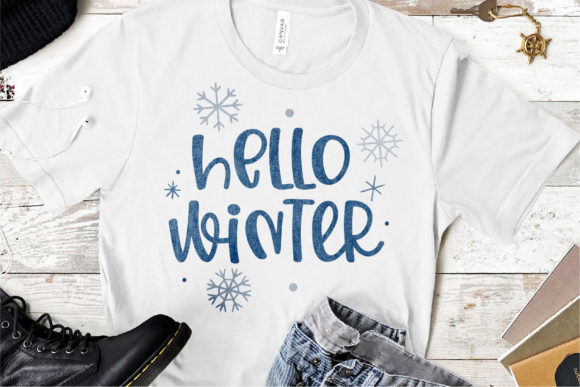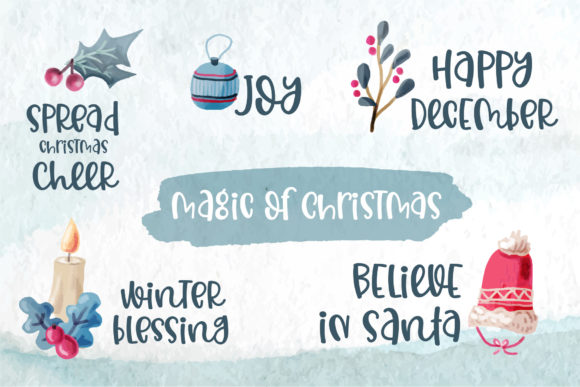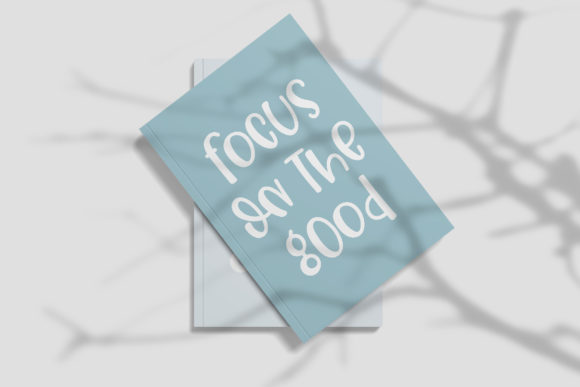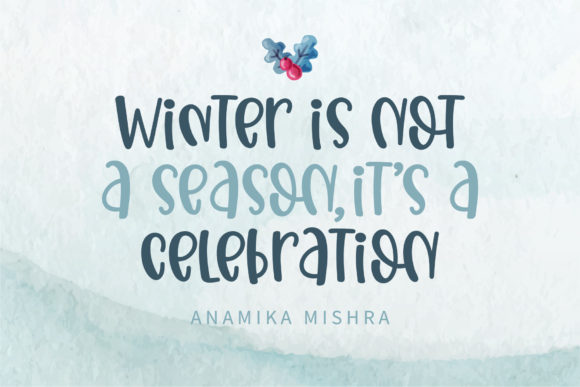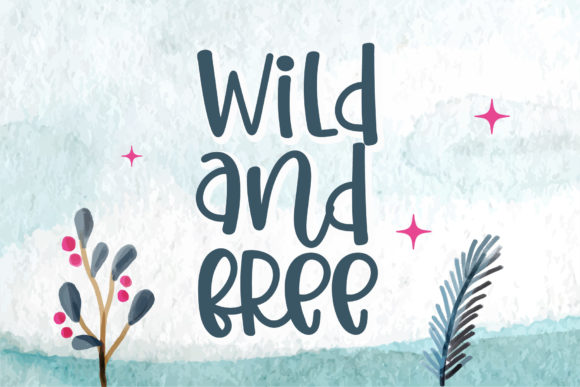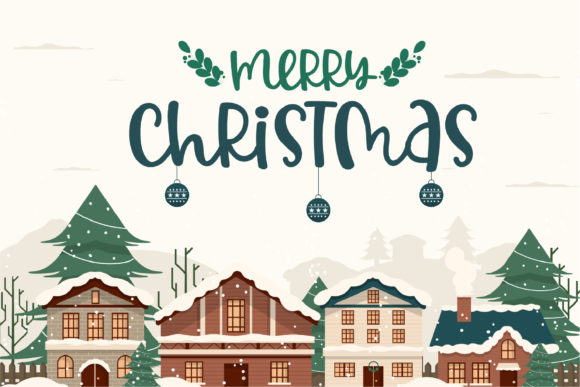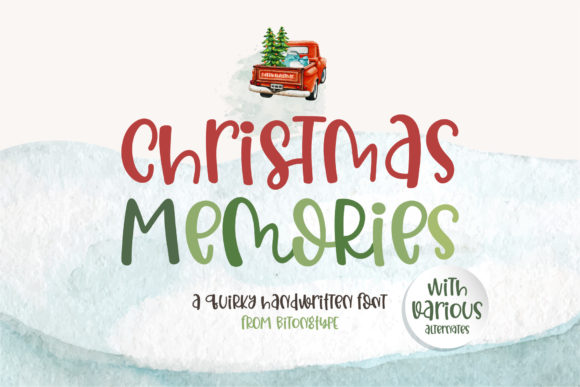
Christmas Memories Font: A Quirky and Laid-Back Handwritten Font for Your Holiday Creations
Are you looking for a font that can add a personal touch to your holiday creations? Look no further than the Christmas Memories Font! This quirky and laid-back handwritten font is perfect for designers and crafters who want to create unique and eye-catching projects. In this article, we’ll take a closer look at the features and benefits of Christmas Memories Font and explore how it can enhance your font library.
A Quirky and Laid-Back Handwritten Font
Christmas Memories Font is a beautifully designed handwritten font that exudes a sense of warmth and coziness. Its quirky and laid-back style makes it perfect for holiday-themed projects, such as Christmas cards, gift tags, and decorations. The font’s irregularities and imperfections give it a charming, hand-crafted feel that’s sure to delight.
A Wonderful Asset to Your Font Library
Whatever the topic, Christmas Memories Font can be a wonderful asset to your font library. Its versatility makes it suitable for a wide range of projects, from holiday-themed designs to everyday creations. Whether you’re designing a Christmas card, a blog post, or a social media graphic, this font can add a touch of personality and whimsy to your work.
One of the best features of Christmas Memories Font is that it’s PUA (Private Use Area) encoded. This means that you can access all of the amazing glyphs and ligatures with ease. PUA encoding allows you to use the font’s special characters, such as swashes and ornaments, without having to worry about complicated installation procedures.
So, what are the benefits of using Christmas Memories Font for designers and crafters? Here are just a few:
- Unique and eye-catching designs: With Christmas Memories Font, you can create unique and eye-catching designs that stand out from the crowd.
- Ease of use: The font’s PUA encoding makes it easy to access and use the font’s special characters.
- Versatility: Christmas Memories Font can be used for a wide range of projects, from holiday-themed designs to everyday creations.
- Time-saving: With a vast range of glyphs and ligatures at your disposal, you can save time and effort when creating your designs.
Tips and Inspiration for Using Christmas Memories Font
Here are some tips and inspiration for using Christmas Memories Font in your designs:
- Pair it with other fonts: Experiment with pairing Christmas Memories Font with other fonts to create interesting and unique combinations.
- Use it for holiday-themed designs: Christmas Memories Font is perfect for holiday-themed designs, such as Christmas cards, gift tags, and decorations.
- Add a personal touch: Use Christmas Memories Font to add a personal touch to your designs, such as in a blog post or social media graphic.
In conclusion, Christmas Memories Font is a quirky and laid-back handwritten font that’s perfect for designers and crafters who want to create unique and eye-catching holiday creations. With its PUA encoding and vast range of glyphs and ligatures, this font is a wonderful asset to your font library. Whether you’re designing a Christmas card, a blog post, or a social media graphic, Christmas Memories Font can add a touch of personality and whimsy to your work.